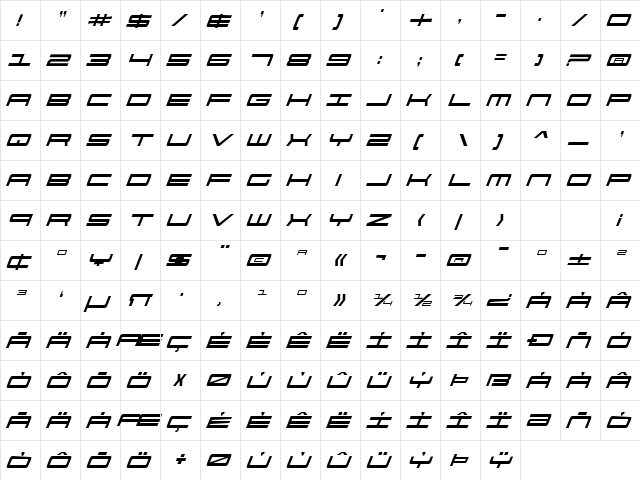
911 Porscha Italic Italic
Design Context for 911 Porscha Italic Typeface
911 Porscha Italic takes a measured approach to typography — its balanced proportions and neutral character make it a reliable workhorse for both digital and print work. The slanted form adds forward momentum and visual energy.
Pro Tip: Try 911 Porscha Italic for annotation and caption copy alongside an upright companion — the contrast in angle creates a dynamic but ordered typographic system.